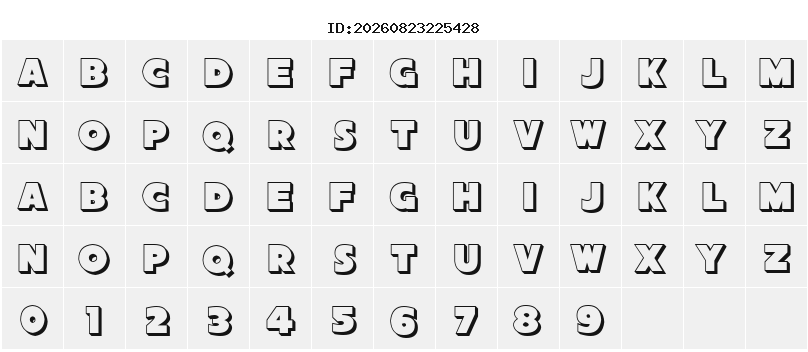
Sans Poster Bold 3D JL Preview
• Font Name: Sans Poster Bold 3D JL
• Full Font Name: Sans Poster Bold 3D JL
• Designer: Jeffrey N. Levine
• Description: "Sans Poster Bold 3D JL".
About Sans Poster Bold 3D JL.ttf
Sans Poster Bold 3D JL.ttf is a modern, elegant sans-serif font designed for ultimate readability and visual harmony. Perfect for branding, headlines, web design, and print materials.